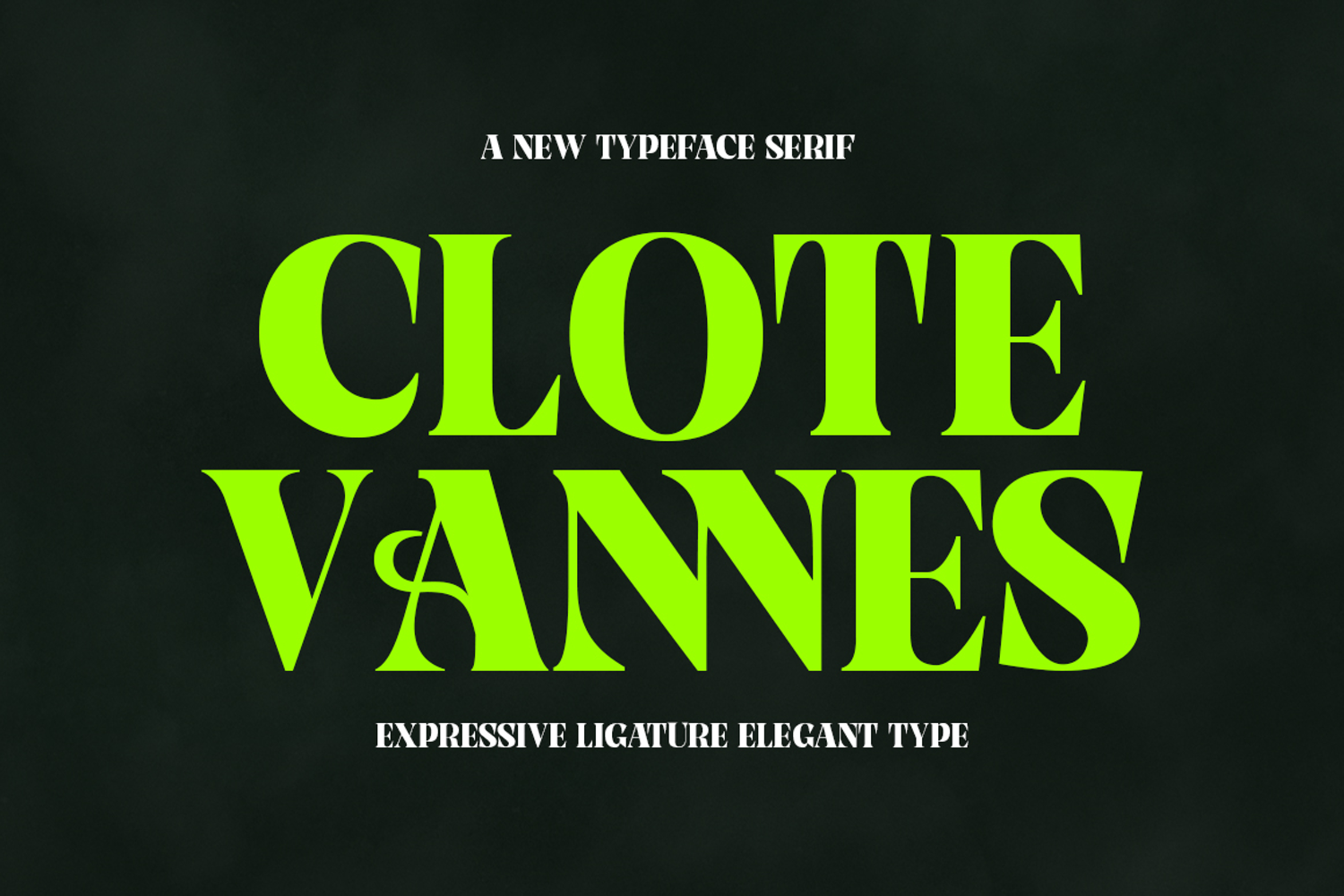
Clote Vannes
Introducing Clote Vannes, a display serif font with elegant and stylish curves. It's romantic, classy, ​​and modern all in one, and definitely a must-have in your font collection.
Clote Vannes is a quality font. This font is not only versatile but also the definition of elegance and class. It's a combination of luxury and high fashion, all rolled into one. Don't wait to add this luxurious font set to your collection and start designing now.